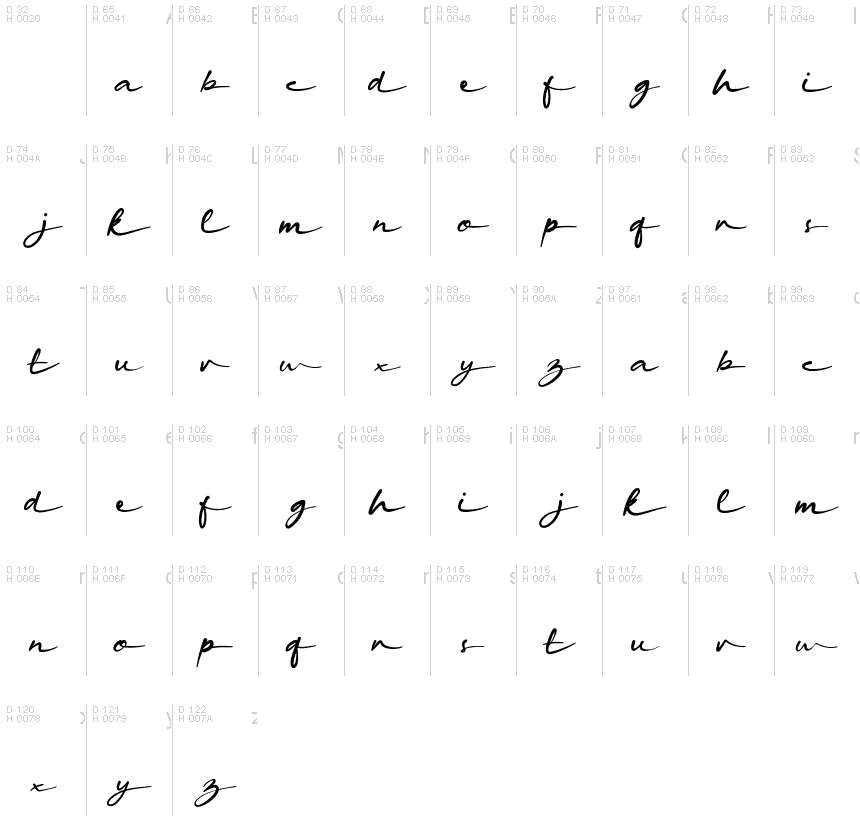
haina
Haina is a beautiful, semi-light handwritten font designed by kokostd. Its expanded width makes it perfect for a wide range of projects, from invitations and greeting cards to logos and packaging design. With its natural flow and unique character, Haina adds an organic touch to any design. Use it for branding your eco-conscious business or creating a personalized touch on your wedding invitations. The possibilities are endless with this charming typeface that's sure to make your message stand out.